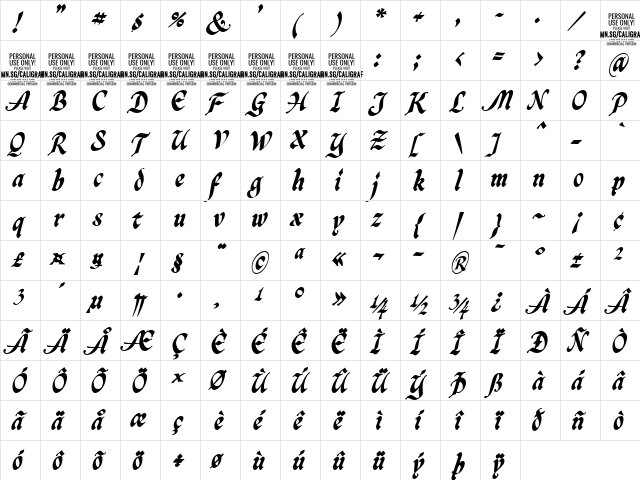
Caligraf Black PERSONAL USE Regular Font Preview
Caligraf Black PERSONAL USE Regular
Design Context for Caligraf Black PERSONAL USE Typeface
Caligraf Black PERSONAL USE is a composed and adaptable typeface that performs quietly and consistently across a wide range of design contexts.